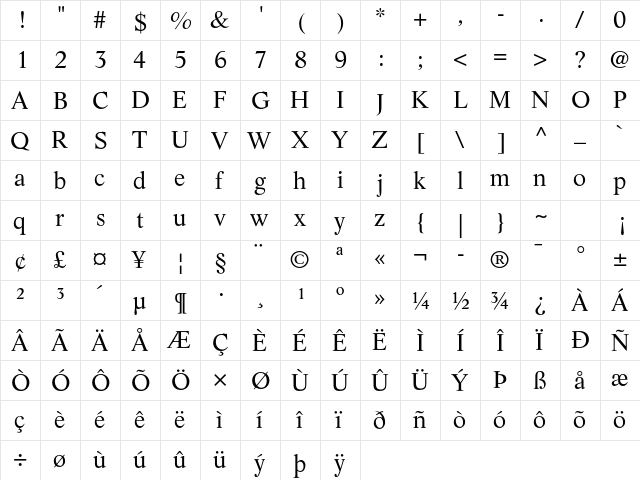
Life LT Std Roman
| Designer | W. Bilz |
Design Context for Life LT Std Typeface
Life LT Std is a composed and adaptable typeface that performs quietly and consistently across a wide range of design contexts. The delicate stroke weight brings airiness and refinement to layouts.